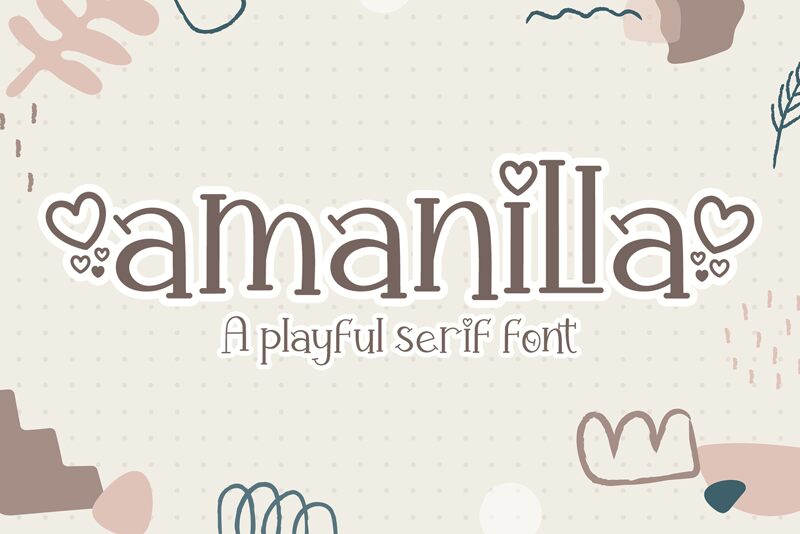
Amanilla
Amanilla font by AEN Creative Studio is a free holiday valentine typeface with a charming, hand-lettered flair. Tall, slender letters, soft curves, and that sweet heart-topped “i” give it a romantic, slightly whimsical feel without turning sugary. The strokes feel like ink drawn with a careful pen, giving your words a warm, personal touch that still reads clean and modern.
Using Amanilla, love notes and seasonal projects instantly feel more thoughtful and crafted. This free font shines on Valentine’s cards, wedding stationery, proposal graphics, gift tags, social media quotes, and boutique packaging where you want gentle romance, not chaos. Pair Amanilla with a simple sans serif for body text, and let this typeface take the lead in larger titles and accents.